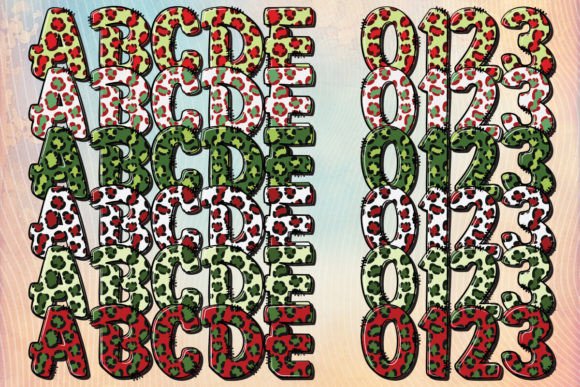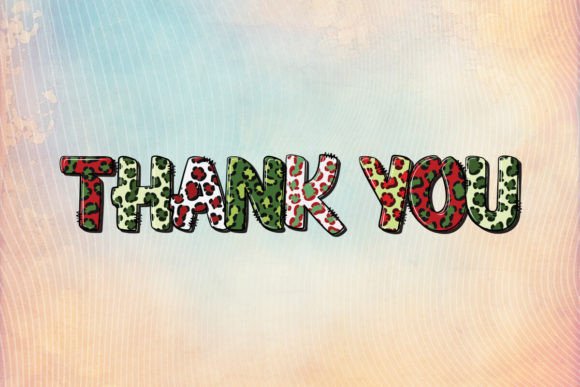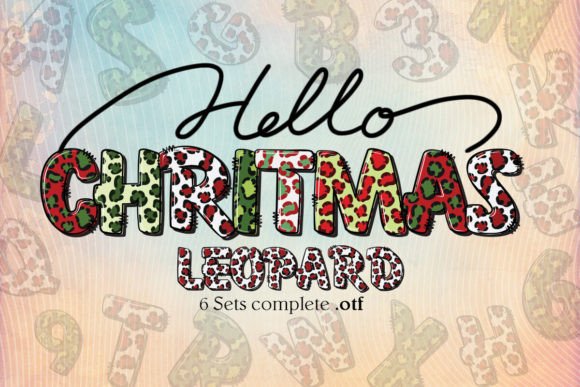
Unleash the Wild Side of Christmas with the Christmas Leopard Font
Are you tired of traditional holiday typography? Look no further! Introducing the Christmas Leopard Font, a unique and eye-catching typeface that combines the fierce aesthetic of leopard skin with the festive charm of Christmas. This exciting font is perfect for designers and crafters looking to add a touch of wild whimsy to their holiday-themed compositions.
A Potent Blend of Patterns
The Christmas Leopard Font takes inspiration from the vivid textures of leopard skin, cleverly combining them with the festive allure of Christmas. The result is a vibrant and exotic alphabet that brings a thrilling beauty to any design. The font features a potent blend of leopard and cheetah patterns, creating a truly unique and captivating visual experience.
Edgy Texture and Thrilling Beauty
The Christmas Leopard Font boasts an edgy texture that adds an intriguing sense of adventure to all your holiday-themed compositions. The font’s design is perfect for those who want to create bold and eye-catching designs that stand out from the crowd. Whether you’re designing holiday cards, crafting decorations, or creating festive social media graphics, this font is sure to make your work shine.
Design Ideas and Inspiration
The Christmas Leopard Font offers endless design possibilities. Here are a few ideas to get you started:
- Create bold and eye-catching holiday cards and invitations
- Design custom holiday decorations, such as garlands and gift tags
- Develop festive social media graphics and holiday-themed promotions
- Make custom holiday gifts, such as personalized ornaments and decorations
The Christmas Leopard Font is a unique and exciting typography that adds a wild and whimsical touch to any holiday design. With its potent blend of leopard and cheetah patterns, edgy texture, and thrilling beauty, this font is perfect for designers and crafters looking to create bold and eye-catching holiday compositions. Whether you’re a seasoned designer or a crafting enthusiast, the Christmas Leopard Font is sure to ignite your creativity and inspire your holiday designs.